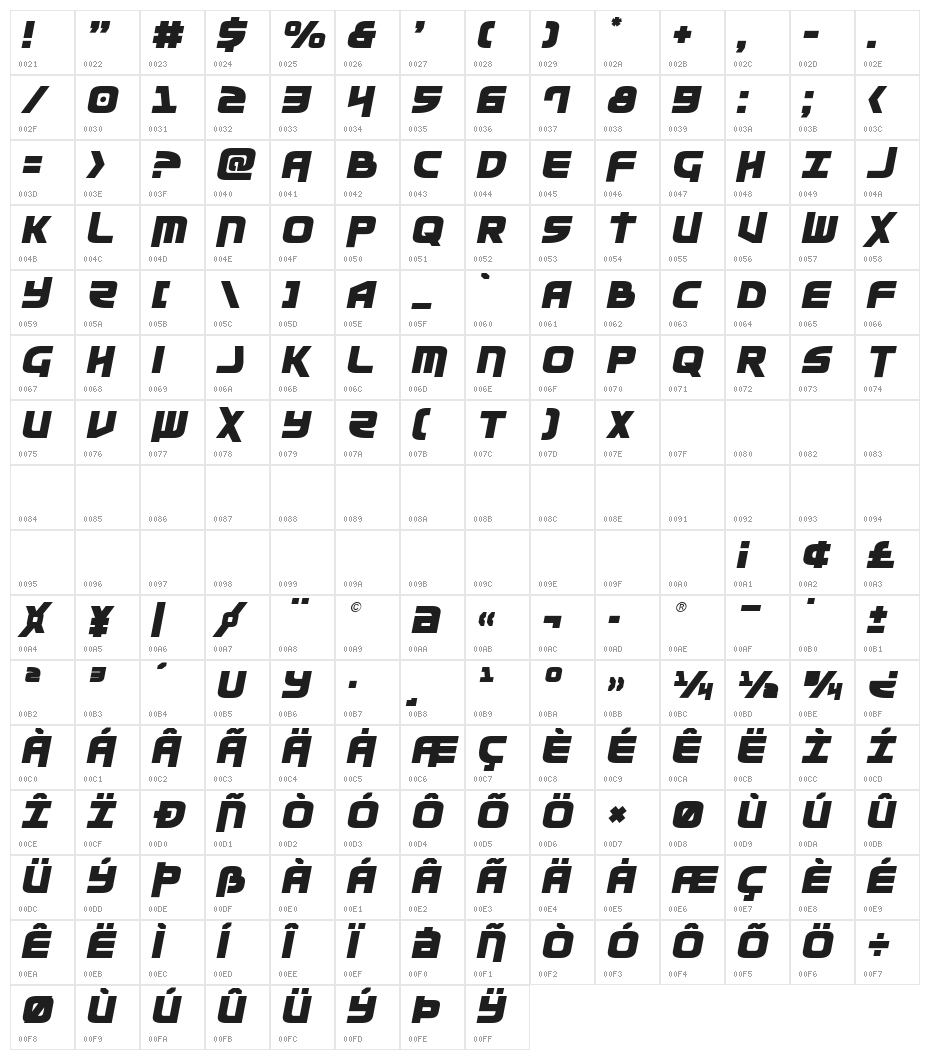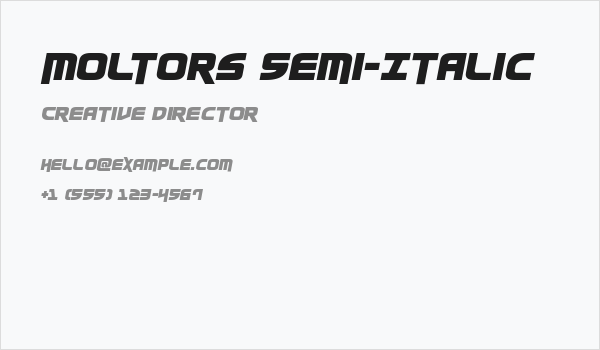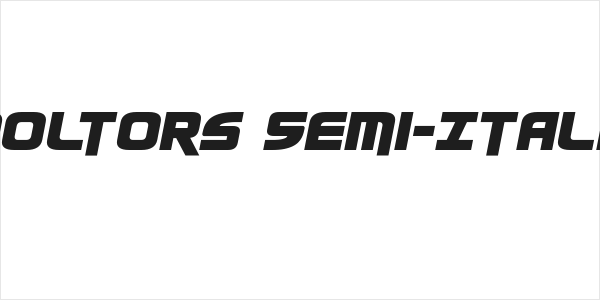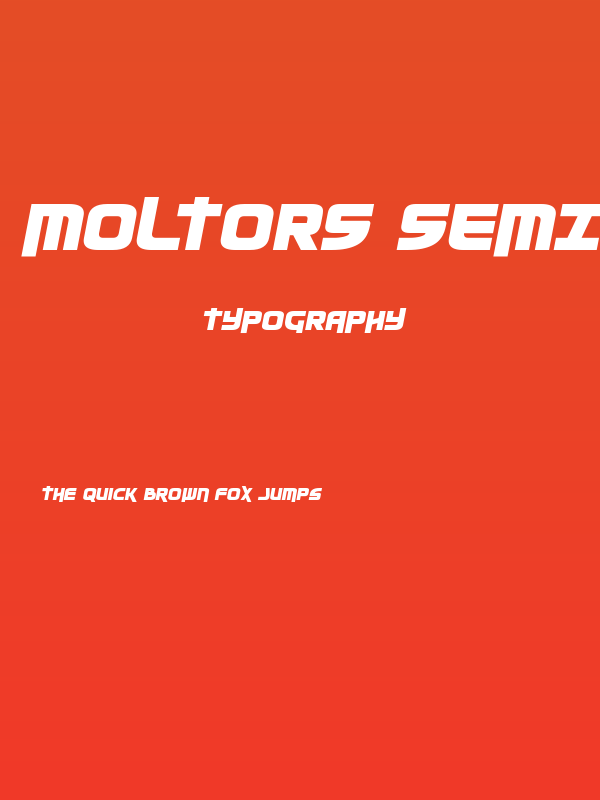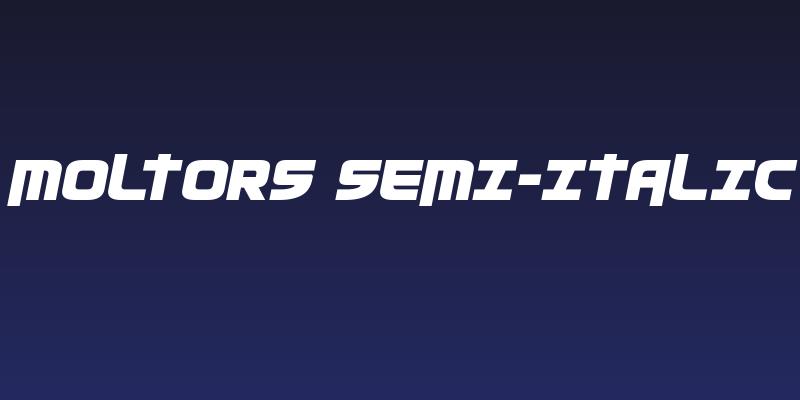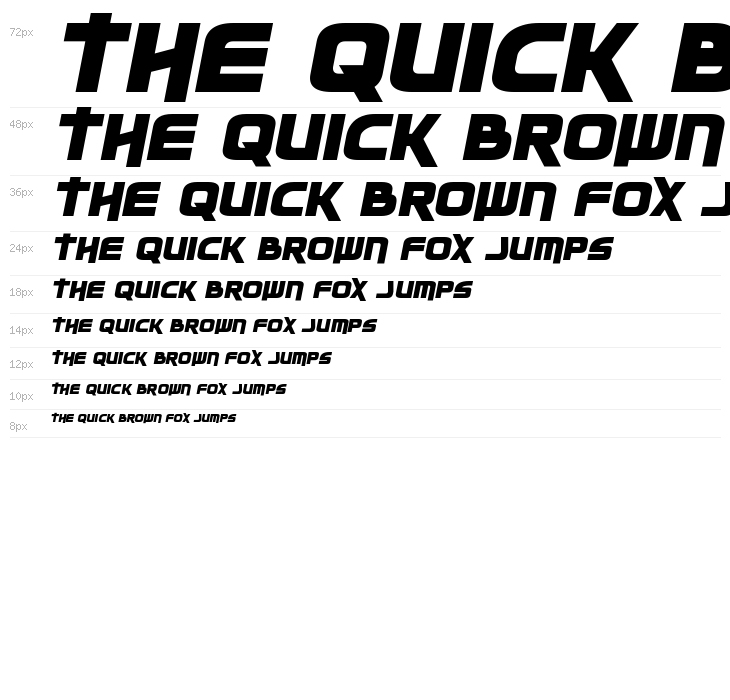
Moltors Semi-Italic Font
Moltors Semi-Italic Description
This font features a bold and dynamic design with a futuristic flair. The characters are slightly italicized, giving them a sense of motion and energy. The strokes are thick and consistent, providing a strong visual impact. The angular edges and geometric shapes contribute to a modern and edgy appearance. The font maintains a uniform width across all characters, ensuring readability and balance. It is well-suited for projects that require a bold statement, such as technology branding, sports team logos, or dynamic advertising campaigns.
| Use Case | Logos, Headlines |
| Proposed Projects | Ideal for technology branding, sports logos, and dynamic advertising. |